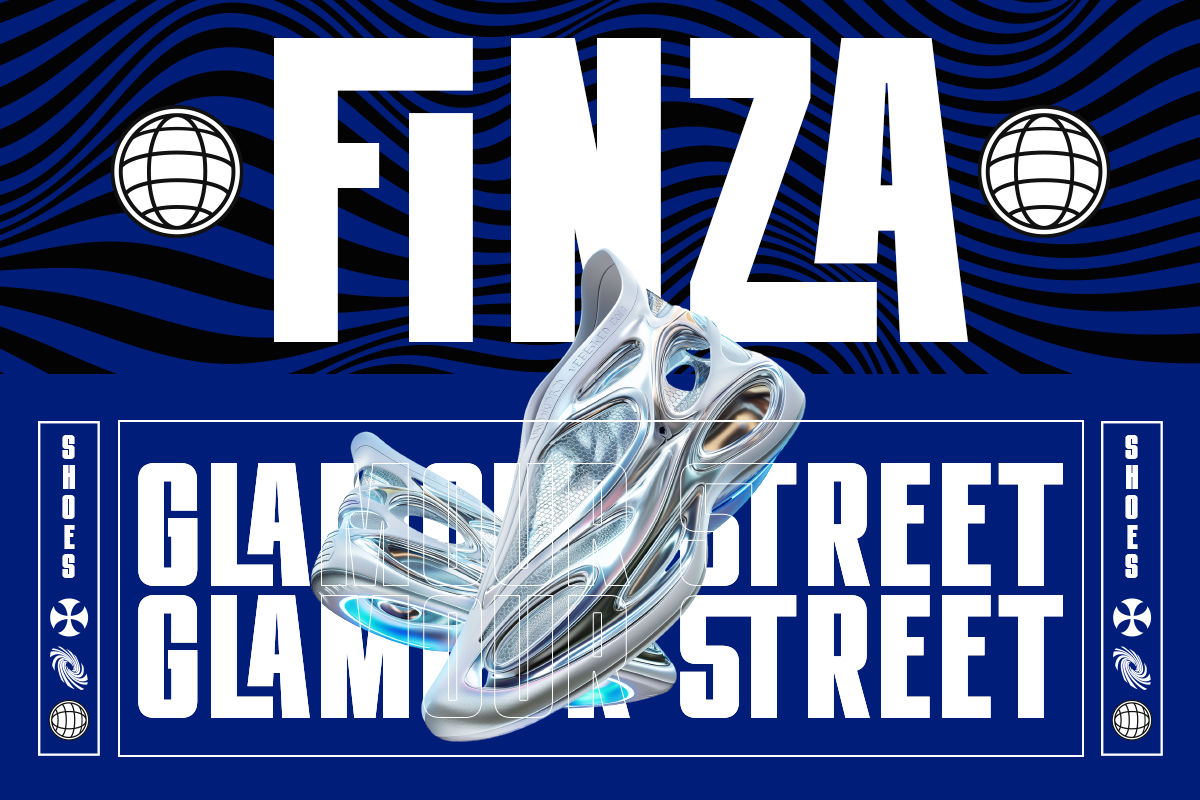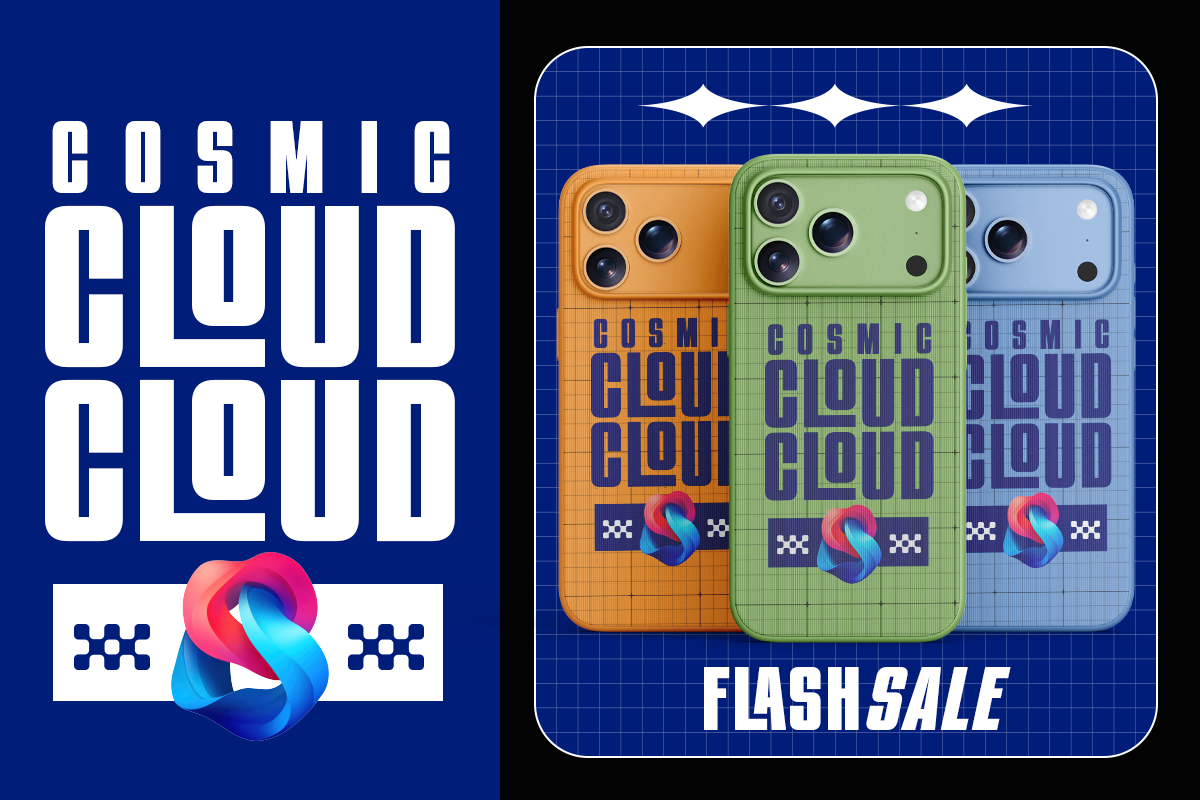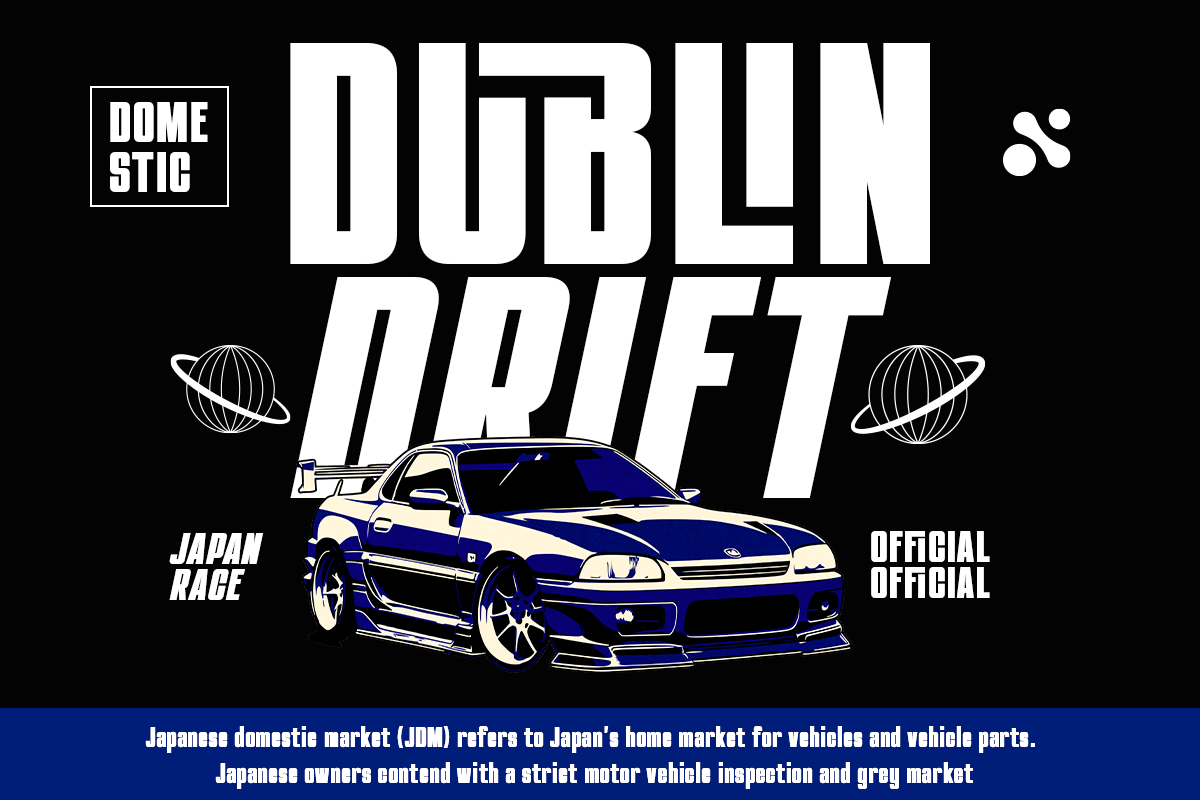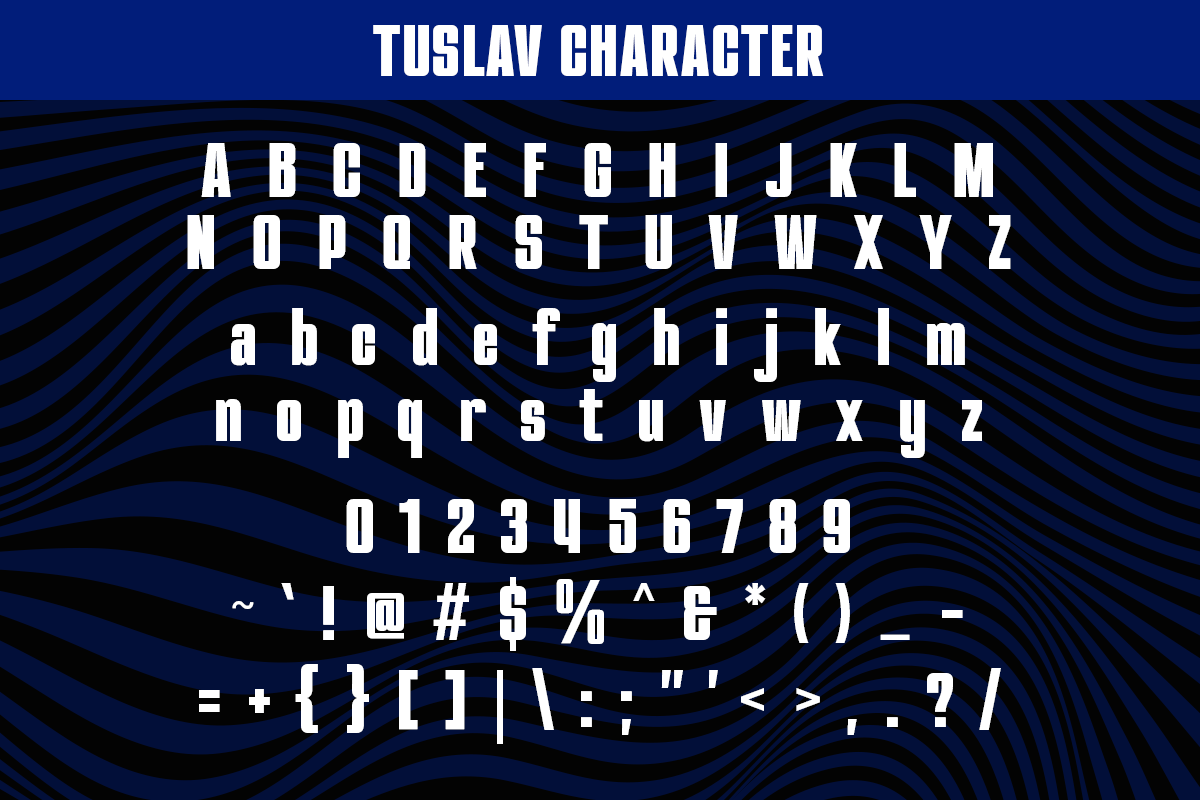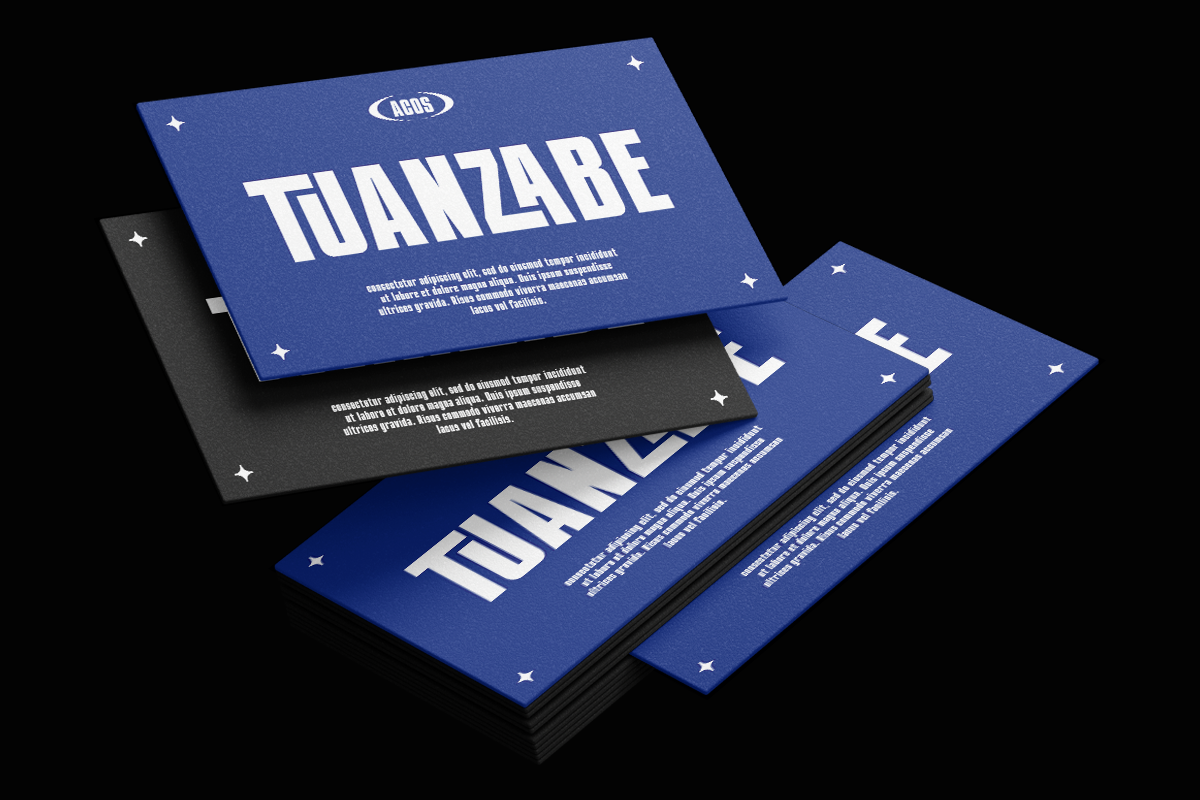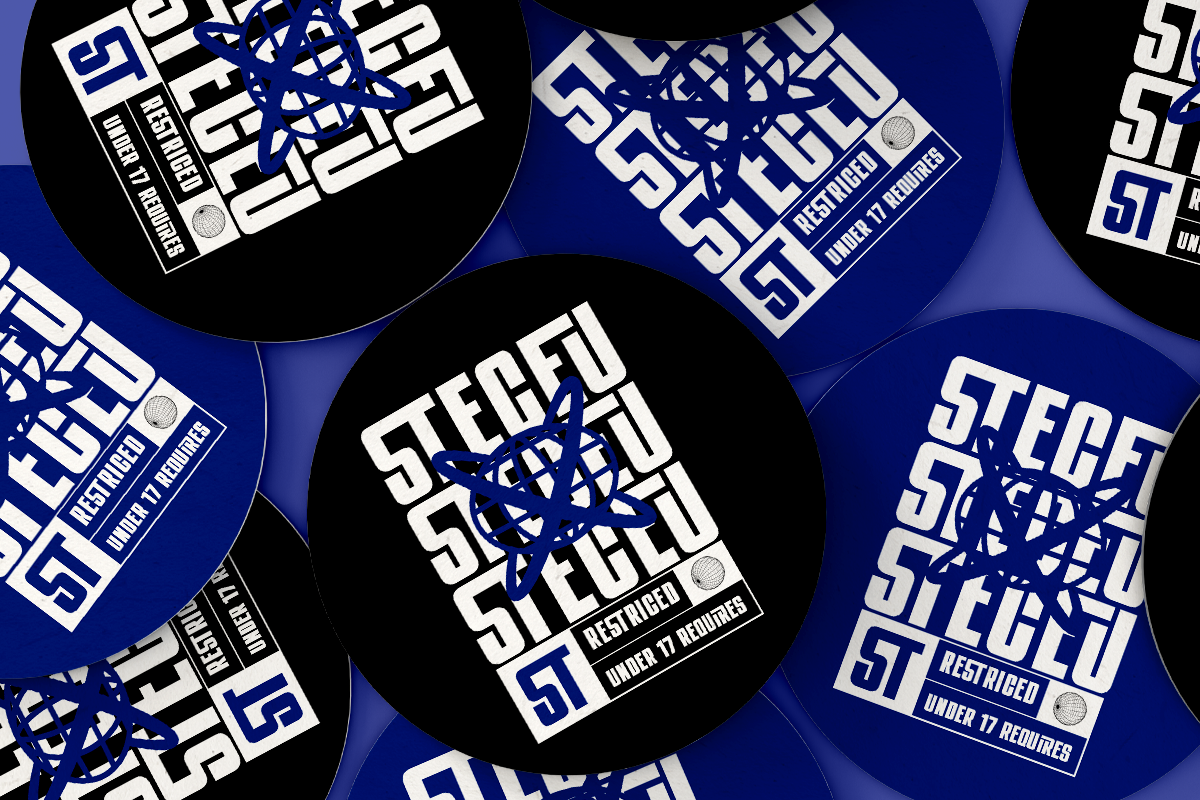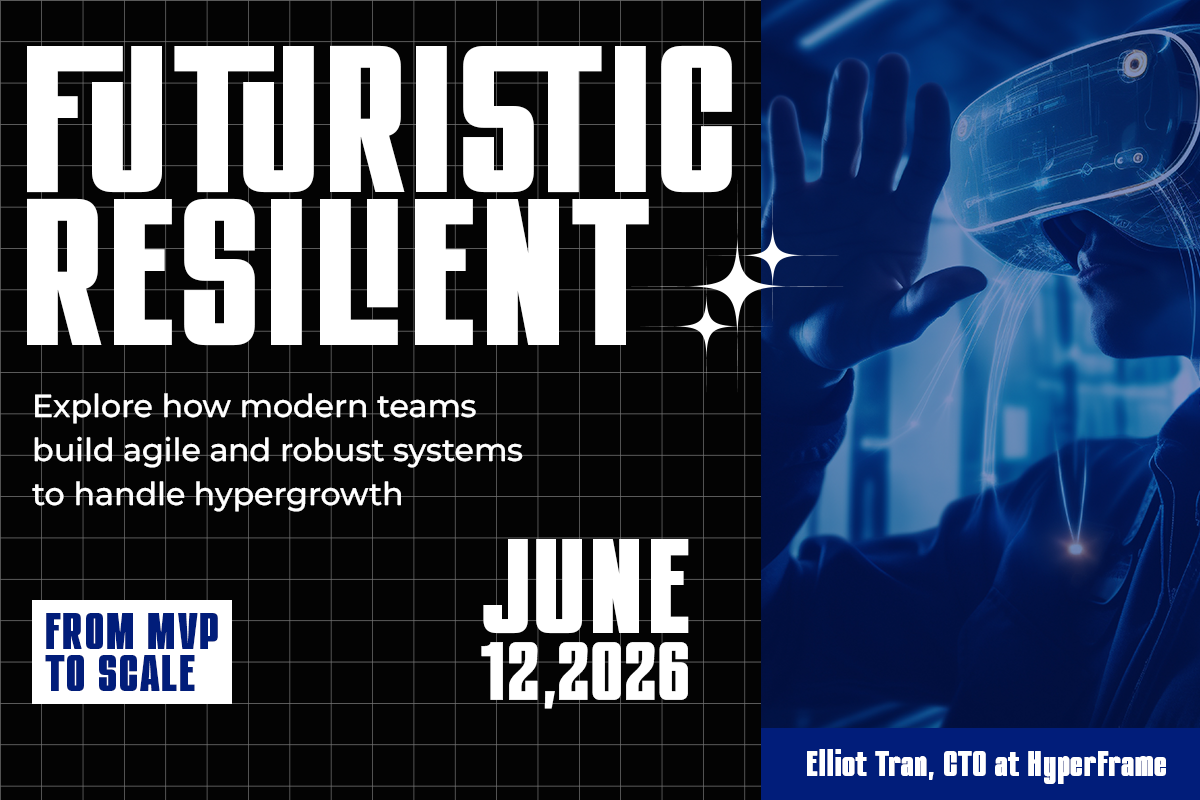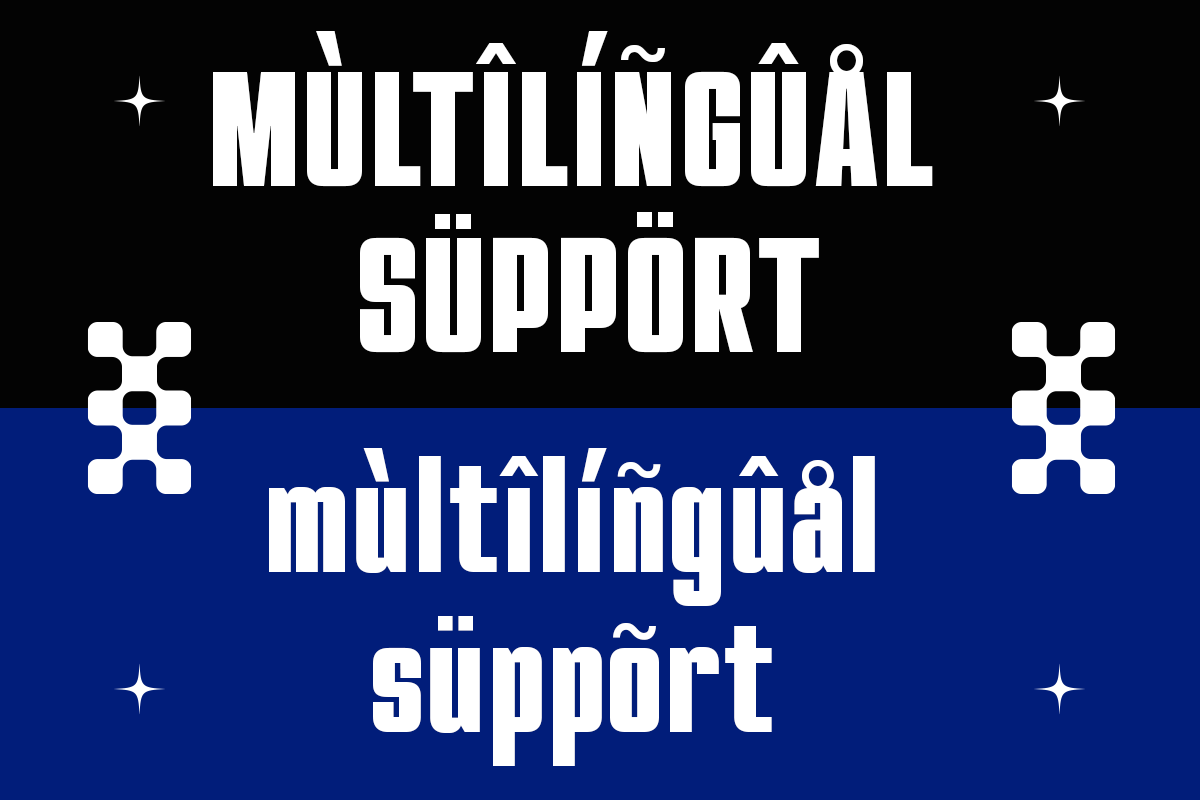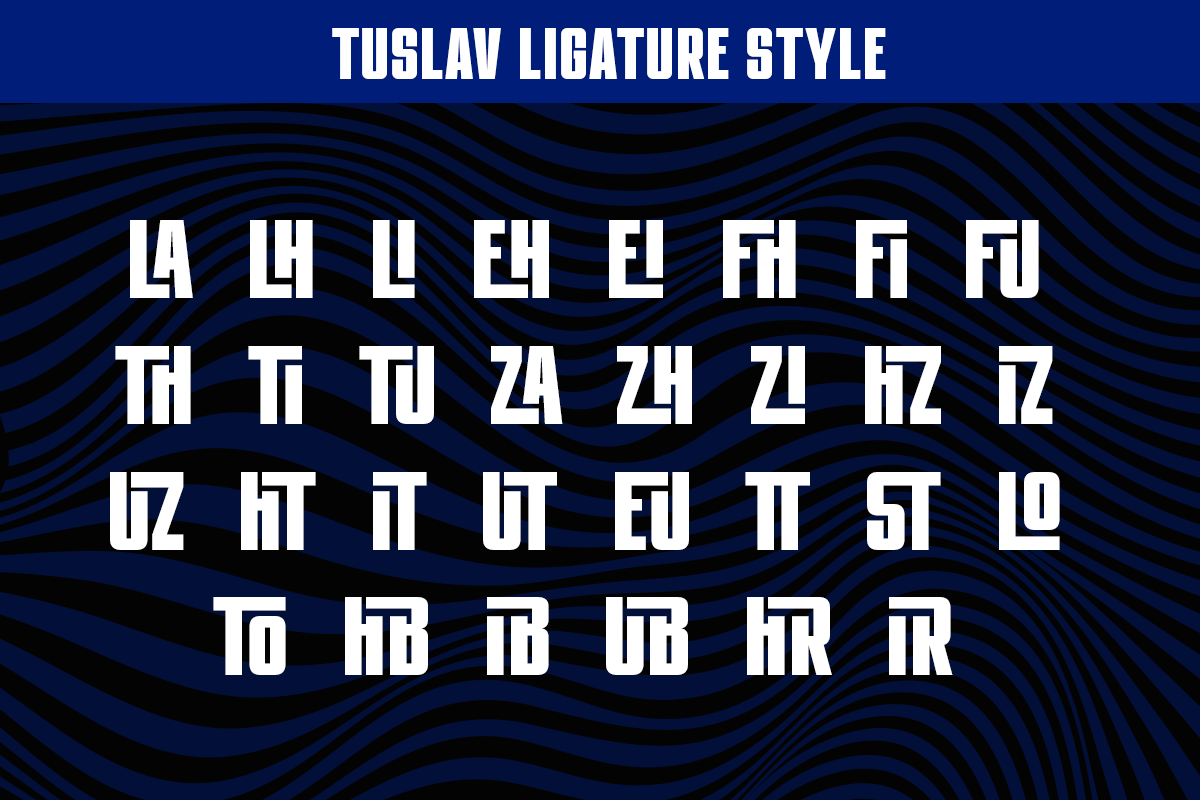
Tuslav – Ligature Condensed Sans
Tuslav is a bold condensed sans serif designed for futuristic visuals and high-impact modern design. Inspired by digital culture, technology, and contemporary aesthetics, Tuslav features strong proportions, tight spacing, and clean geometry that instantly delivers power and clarity.
Built with ligature support and a condensed structure, Tuslav excels in projects that demand efficiency and visual dominance. It works seamlessly for branding, posters, tech startups, gaming visuals, editorial headlines, UI concepts, and digital campaigns where space and impact matter equally.
Whether used for logos, headlines, or experimental layouts, Tuslav brings a confident, modern voice to your typography.
- Stylish Ligature Set ( Uppercase and Lowercase )
- Number and Symbol